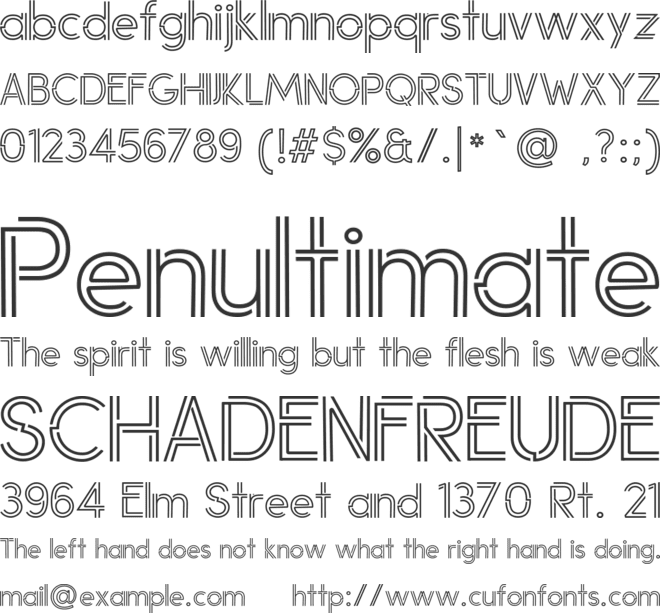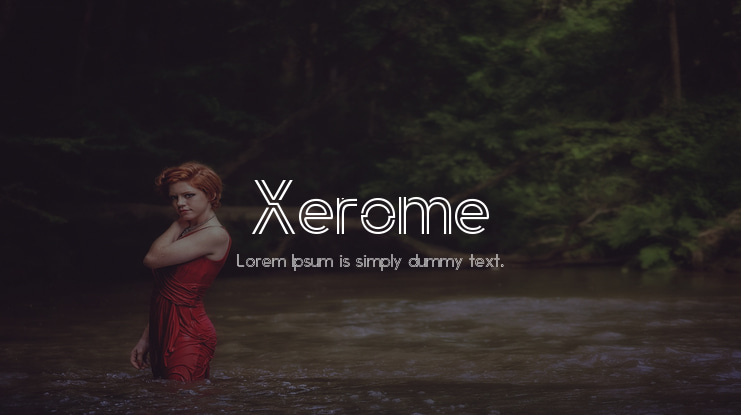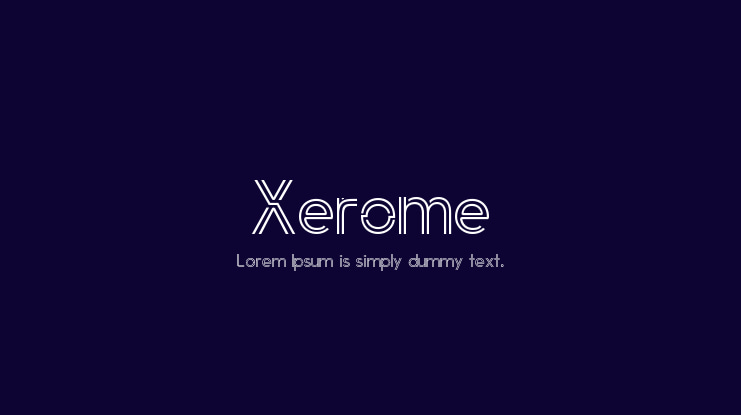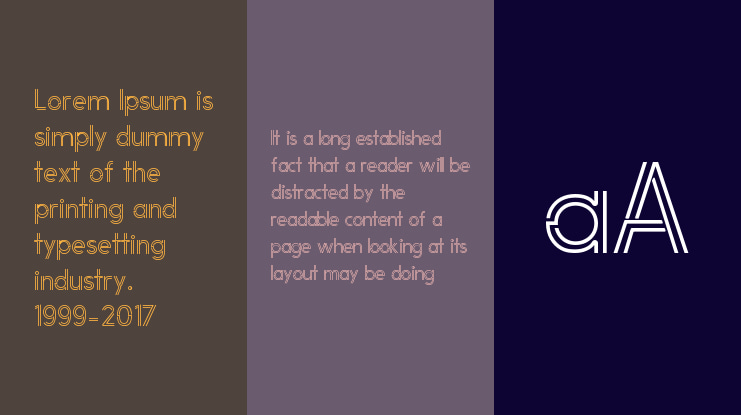
Xerome Font Family
Webhance Studio
Xerome is a modern Sans Serif typeface very much suitable for Posters, headlines, Decorative letters, Notices, Logo Designs, Creative Banners. Creative & Decorative Typography Web Designs.